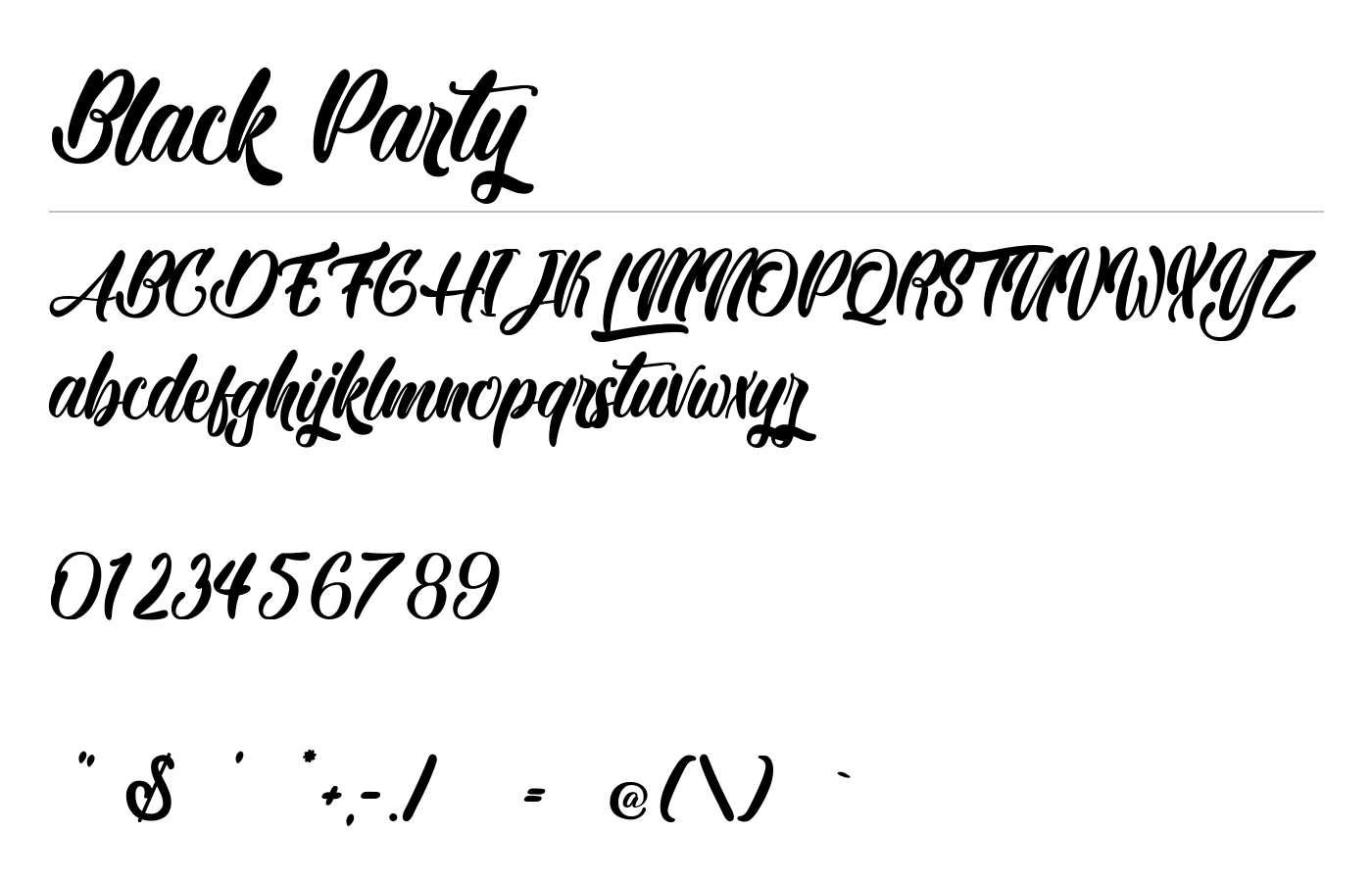
Black Party is a bold, brush script font that exudes a lively and expressive personality with its smooth, energetic strokes and playful curves. It features a strong contrast in stroke weight, flowing letterforms with unique flourishes, and a casual yet elegant flair, making it ideal for branding, invitations, party posters, and any design that aims to convey fun and stylish sophistication. Its distinctive style shines best in headlines and logos where a dynamic, festive atmosphere is desired.
Black Party Font
About Black Party Font
| Font family | Black Party Font |
| Designer | Typhoon Type - Suthi Srisopha |